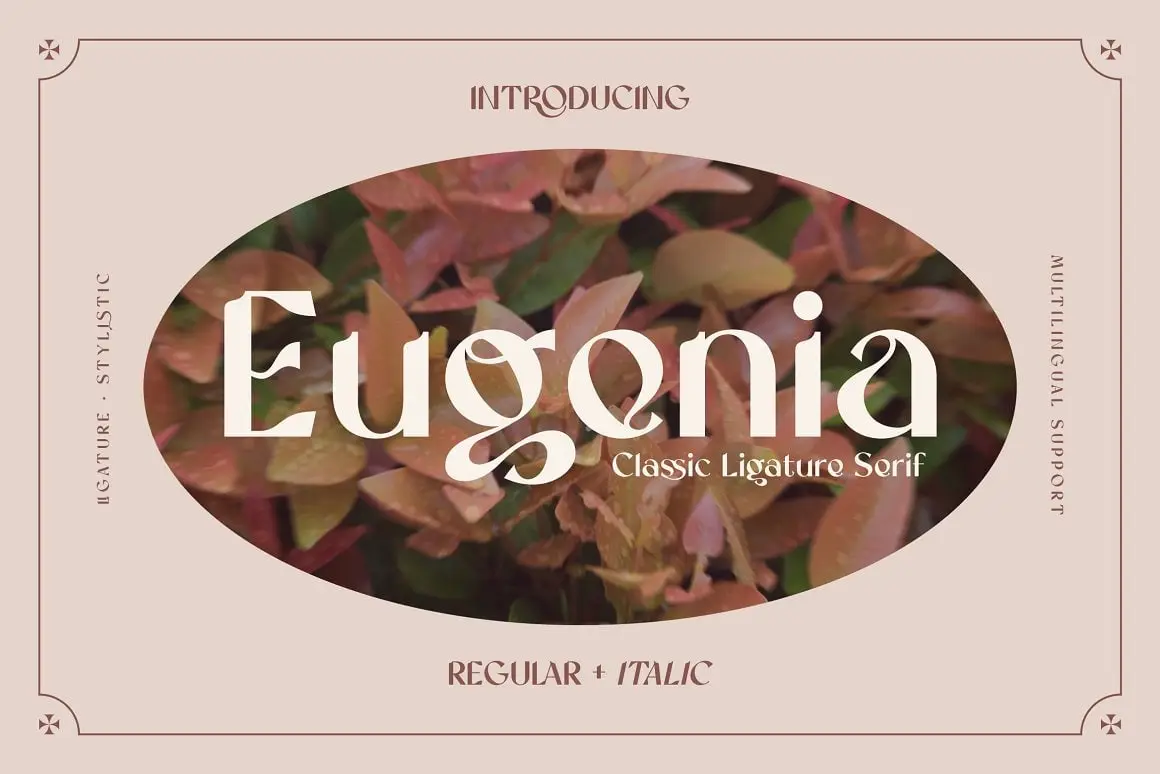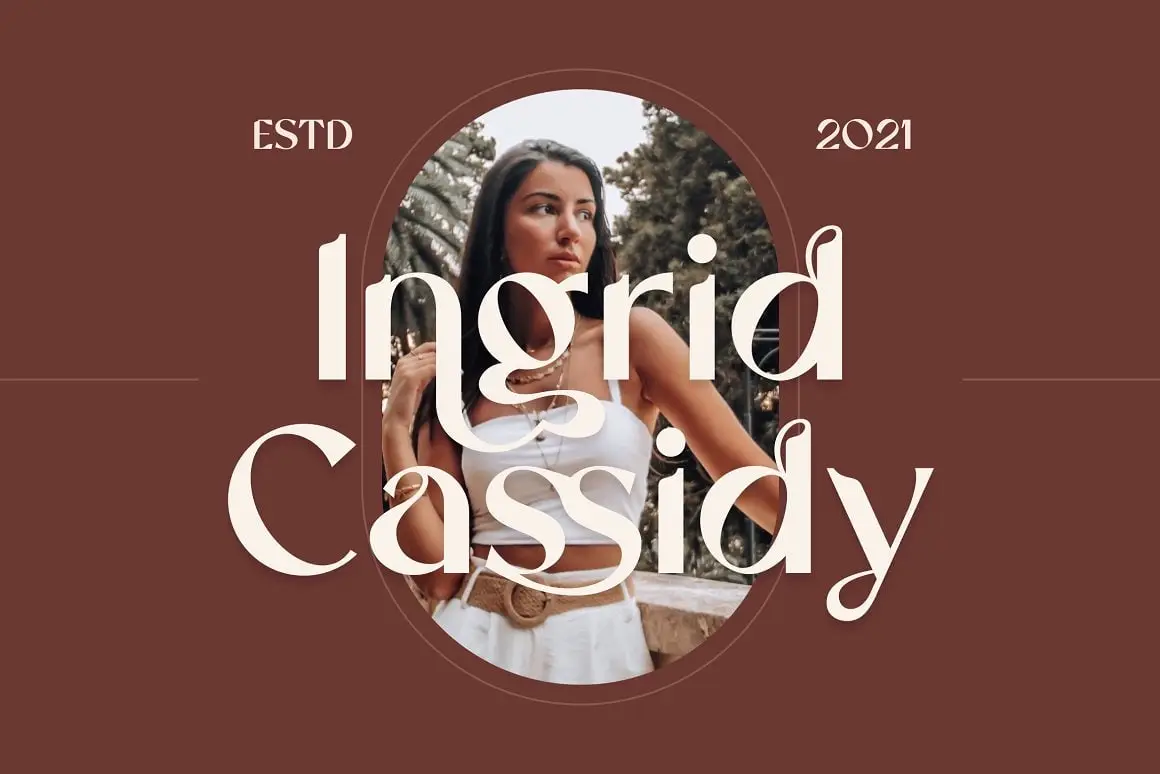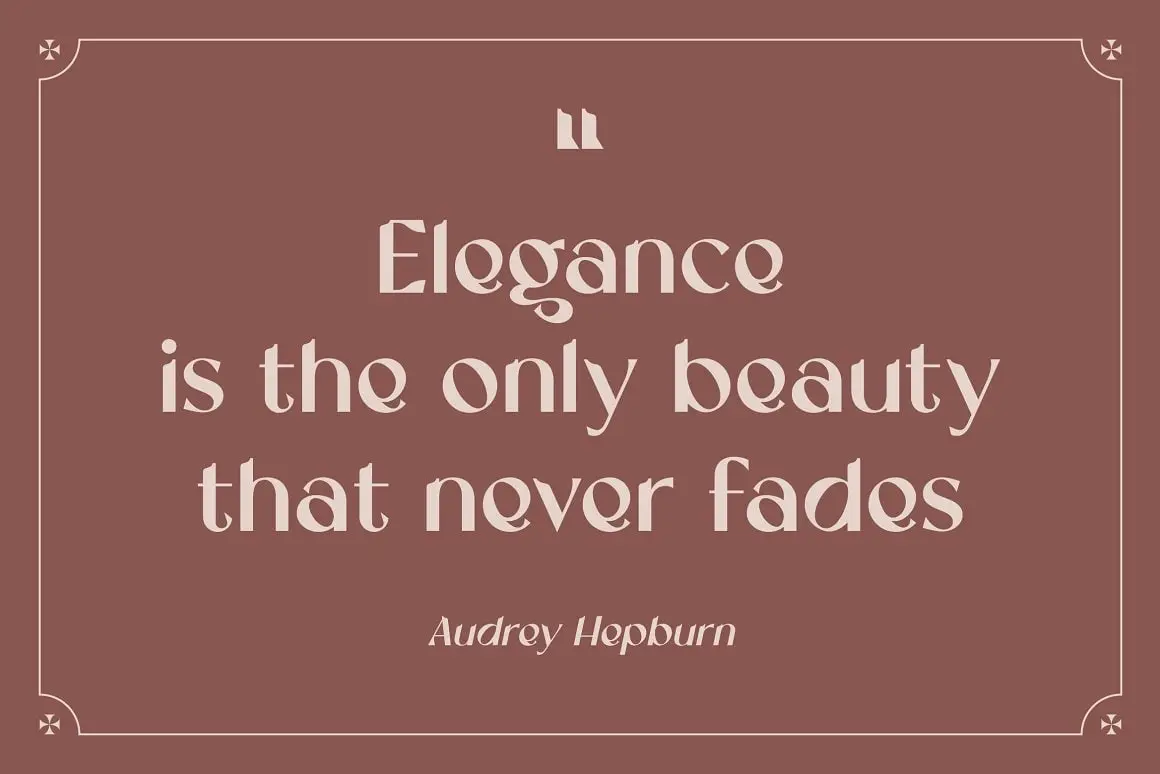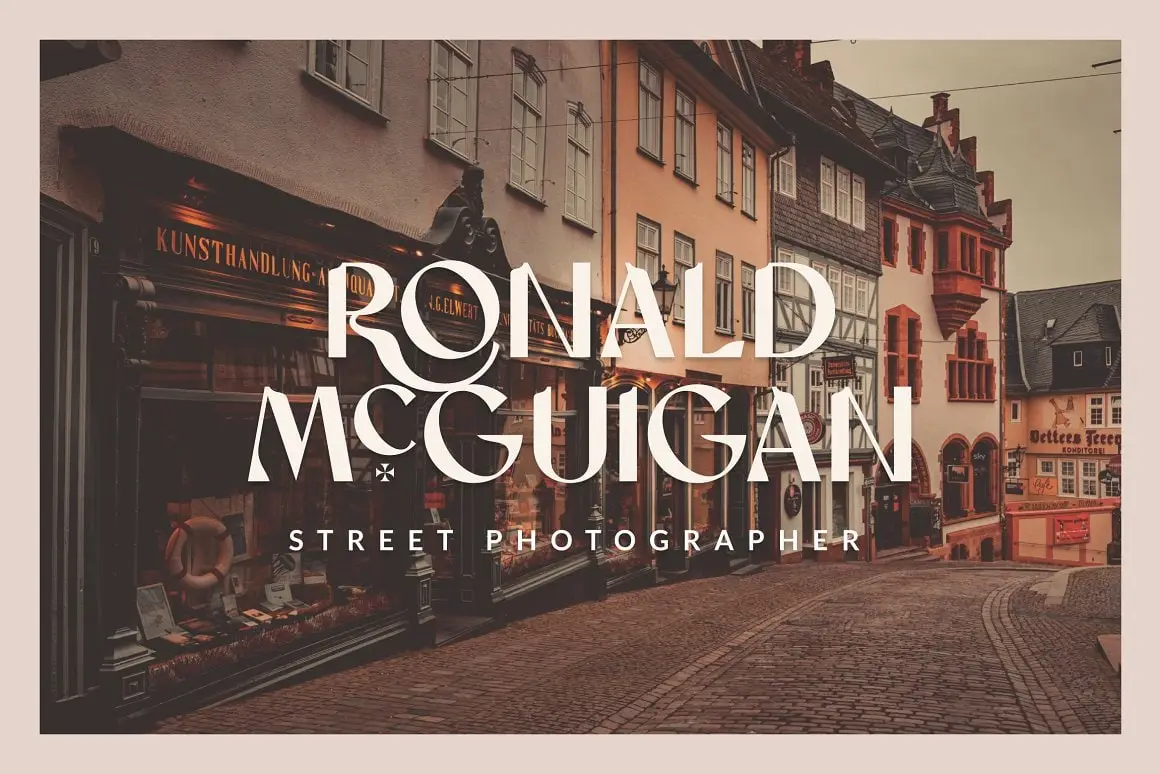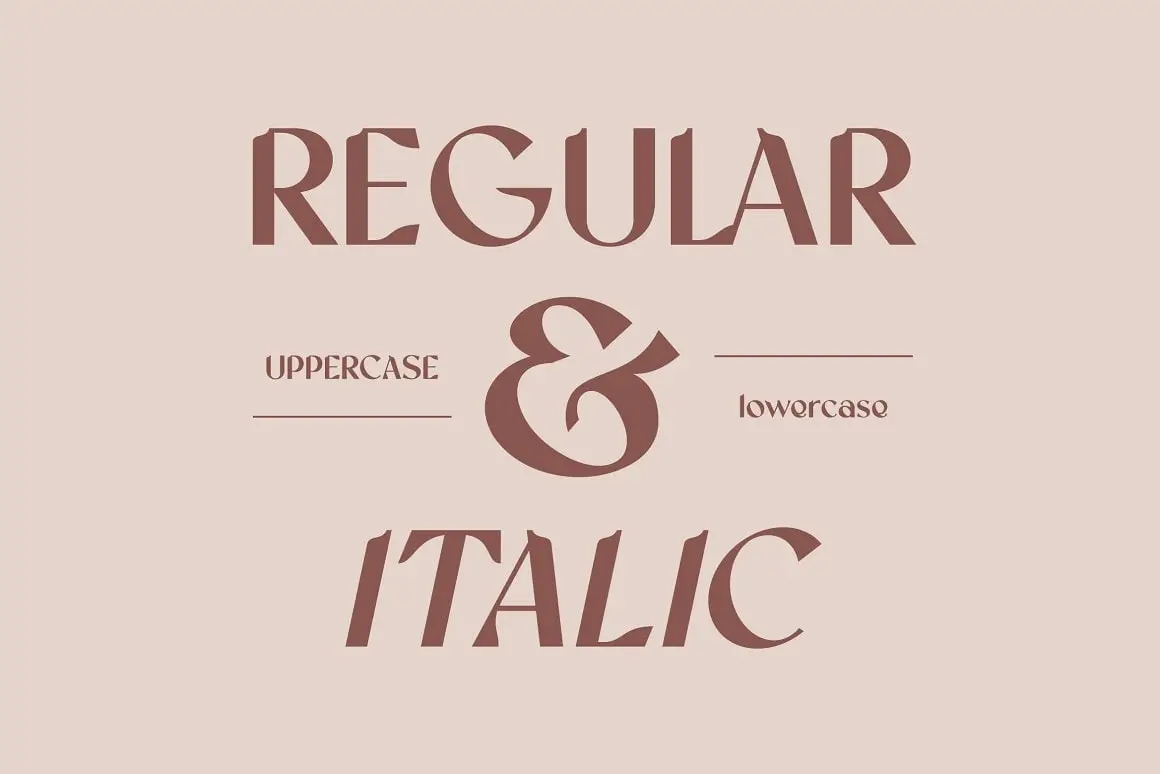
Bekeen Co Eugenia Ligature Serif Font
The Bekeen Co Eugenia Ligature Serif Font is a beautifully crafted typeface that combines elegance with modern design. This font features unique ligatures that enhance the overall aesthetic, making it perfect for a variety of applications.
• Stylish ligatures for a sophisticated look
• Multiple weights to suit different design needs
• Uppercase and lowercase letters, numerals, and punctuation
• Styles: Serif
The Bekeen Co Eugenia Ligature Serif Font is ideal for branding, logos, print materials, and web design. Its elegant style makes it suitable for both professional and creative projects.